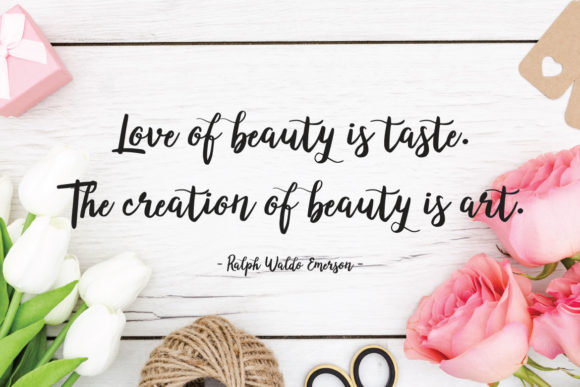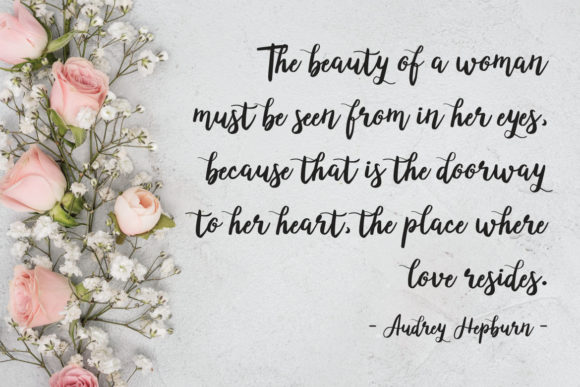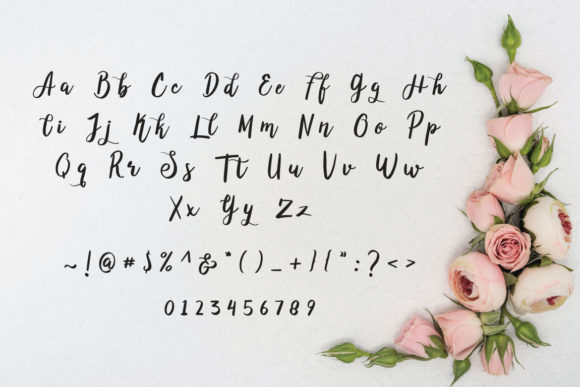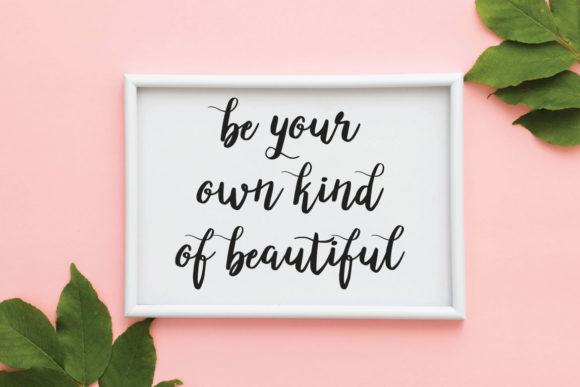
The Perfect Match: Unleashing the Beauty of Abelia White Font
As a designer, have you ever found yourself pouring over a blank page, trying to decide on the perfect font to convey your message? The blank slate can be daunting, but what if I told you that the perfect font was just around the corner? Enter the Abelia White Font, an elegant and modern handwritten font that exudes a sense of luxury and sophistication.
This stunning font is more than just a pretty face – it’s a versatile workhorse that can be used for a wide range of creative projects, from letterheads and titles to stationery. Its casual charm makes it perfectly suited for everyday use, yet its high-end feel makes it ideal for special occasions. For designers, the Abelia White Font is a valuable addition to any toolkit, offering a unique and eye-catching way to add some personality to your designs.
Abelia White Font Key Features
- Font Family: Abelia White
- Unique Characteristics: Elegant script font, perfect for wedding invitations, stationery, and other formal events
Abelia White Font Review
Overall, I think Abelia White is a beautiful, elegant font that can add a touch of sophistication to any design project. ✨ The flowing lines and subtle curves make it perfect for creating a sense of refinement and poise.
One of the things that works well in Abelia White is its versatility. ✨ It can be used for a wide range of applications, from invitations and greeting cards to wedding stationery and business reports. It’s also great for creating subtle emphasis and adding texture to your designs.
However, there are a few limitations to keep in mind. ⚠️ For one thing, Abelia White may not be the best choice for headlines or titles, as it can be a bit too delicate and may get lost in larger text sizes. ⚠️ Additionally, it may not be the most legible font in certain contexts, such as in very small sizes or in low-light conditions.
Here are some specific strengths and weaknesses of Abelia White:
- ✨ Elegant and sophisticated feel
- ✨ Versatile and can be used in a wide range of applications
- ⚠️ May not be suitable for headlines or titles
- ⚠️ May not be the most legible font in certain contexts
Overall, I think Abelia White is a solid choice for designers looking for a elegant and sophisticated font. With its versatility and beautiful design, it’s a great addition to any design toolbox.
The Abelia White Font is a versatile font that can be used in a variety of applications, including:
- Editorial and magazine design
- Print and digital advertising
Alternatives to Abelia White Font
Sofia Pro
Sofia Pro is a modern sans-serif font that is highly legible and versatile. It is suitable for both digital and print media, making it a great choice for designers who need a clean and sophisticated look. Sofia Pro is a more geometric font compared to Abelia White Font, which makes it stand out in modern designs. It is ideal for use in corporate branding, editorial content, and digital interfaces.
Inter
Inter is a sans-serif font that is highly customizable and adaptable to various design contexts. It features a clean and minimalistic design that makes it perfect for digital products, corporate branding, and editorial content. Compared to Abelia White Font, Inter is more modern and geometric, making it a great choice for designers who want to create a sleek and contemporary look.
Q: What is the recommended font size and line height for Abelia White Font?
The recommended font size for Abelia White Font is between 10pt and 24pt, depending on the design application and desired legibility. For optimal readability, we recommend a line height of at least 120% to 150% of the font size. This will ensure that the text is clear and easy to read, even in small sizes.